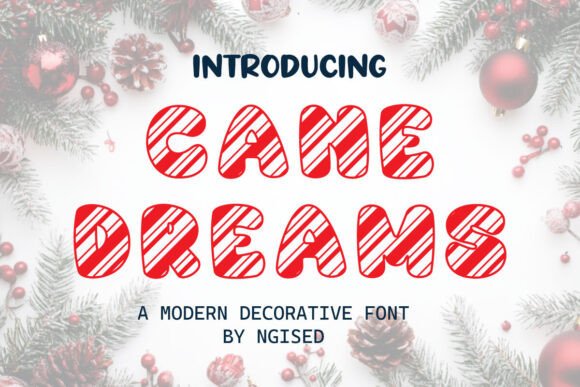
Cane Dreams Font: Add a Touch of Holiday Cheer to Your Designs
Are you looking for a font that captures the essence of the holiday season? Look no further than CaneDreams Decorative Font, a whimsical and festive font inspired by the classic candy cane pattern. This playful font is perfect for adding a touch of holiday cheer to any design project, from Christmas cards to holiday decor and winter-themed crafts.
A Festive Font Inspired by Candy Canes
CaneDreams Decorative Font is a unique and eye-catching font that is sure to bring a fun and joyful vibe to your projects. The playful, striped strokes of this font are reminiscent of peppermint treats, making it ideal for designers and crafters who want to add a touch of holiday magic to their work. Whether you’re creating digital designs or printable materials, CaneDreams is the perfect font to get you in the holiday spirit.
Perfect for Holiday Designs
CaneDreams Decorative Font is perfect for a variety of holiday designs, including:
- Christmas cards and invitations
- Holiday decor and signage
- Winter-themed crafts and DIY projects
- Digital designs, such as social media graphics and blog posts
- Printable materials, such as holiday gift tags and wrapping paper
Key Features of CaneDreams Font
CaneDreams Decorative Font has several key features that make it a great addition to your design toolkit:
- Whimsical design: The playful, striped strokes of CaneDreams are sure to add a touch of holiday cheer to your designs.
- Festive spirit: This font is perfect for designers and crafters who want to add a touch of holiday magic to their work.
Benefits of Using CaneDreams Font
There are several benefits to using CaneDreams Decorative Font in your designs:
- Adds a touch of holiday cheer: CaneDreams is the perfect way to add a touch of holiday magic to your designs.
- Unique and eye-catching: The playful, striped strokes of CaneDreams make it a unique and eye-catching font that’s sure to stand out.
- Versatile: CaneDreams can be used in a variety of design projects, from digital designs to printable materials.